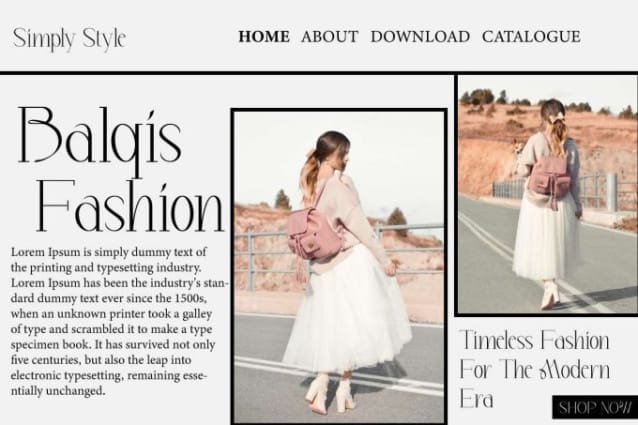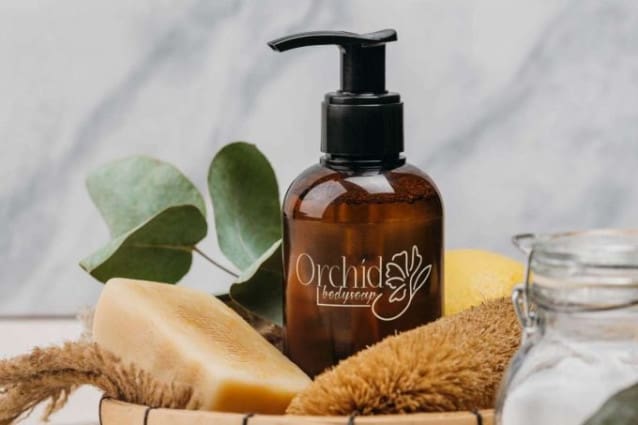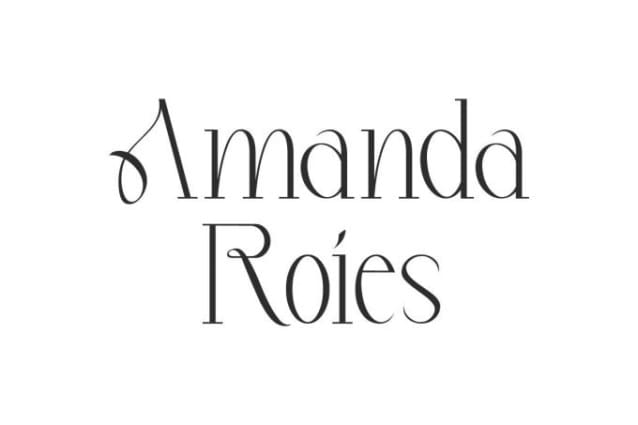
Amanda Roies Font
Amanda Roies Font is a modern and stylish serif display font with a unique twist. It is light and curly making it look beautiful which can enhance your business, such as accessories, architect, café, clothing brand, cosmetic, fashion designer, film, furniture, interior design, jewelry, photography, printing, publishing, real estate, restaurant, retail, skincare, social media content, spa salon, wedding, writer, etc.
Amanda Roies Font includes full set of Uppercase and Lowercase Basic Characters, Number, Punctuation, and Symbol. This will help your design feel charming and immersed in serenity, such as apps, blogs, brand logo, brochure, business card, cover, flyer, headline, invitation, label, product packaging, poster, quote, screen print, stationery, sticker, title, watermark, website, and much more.